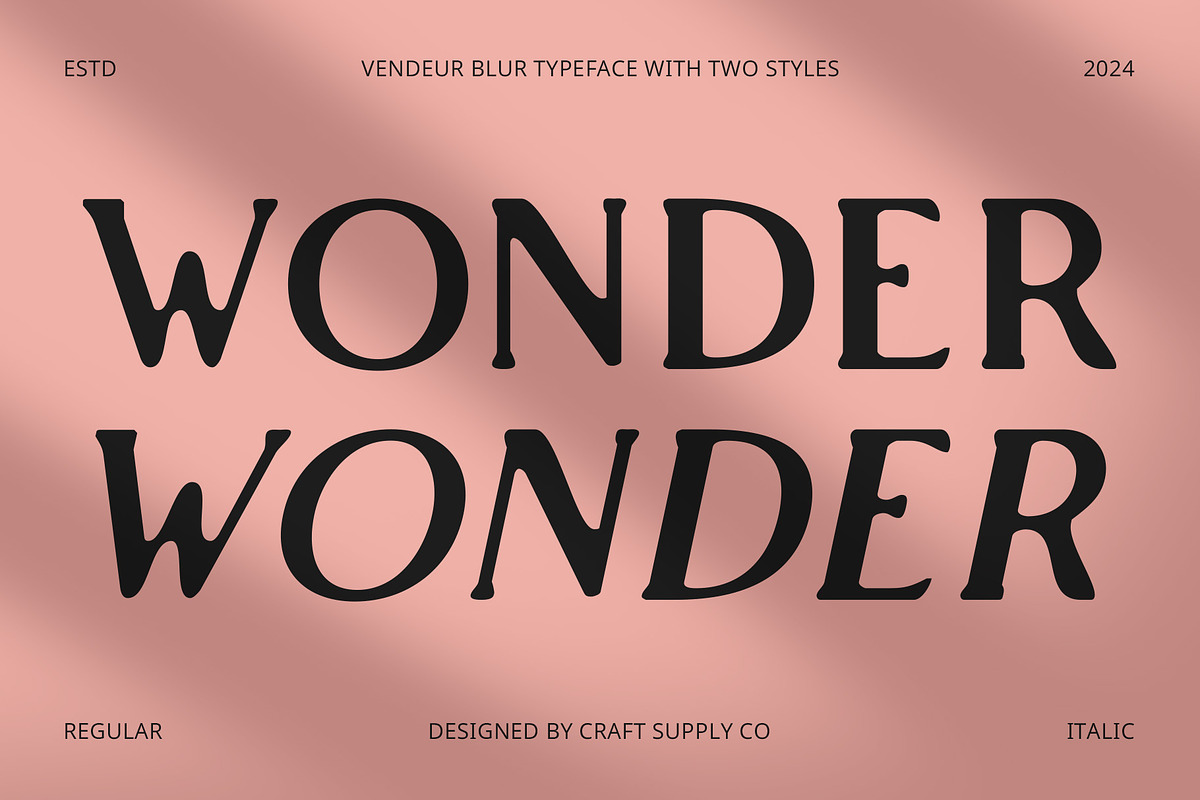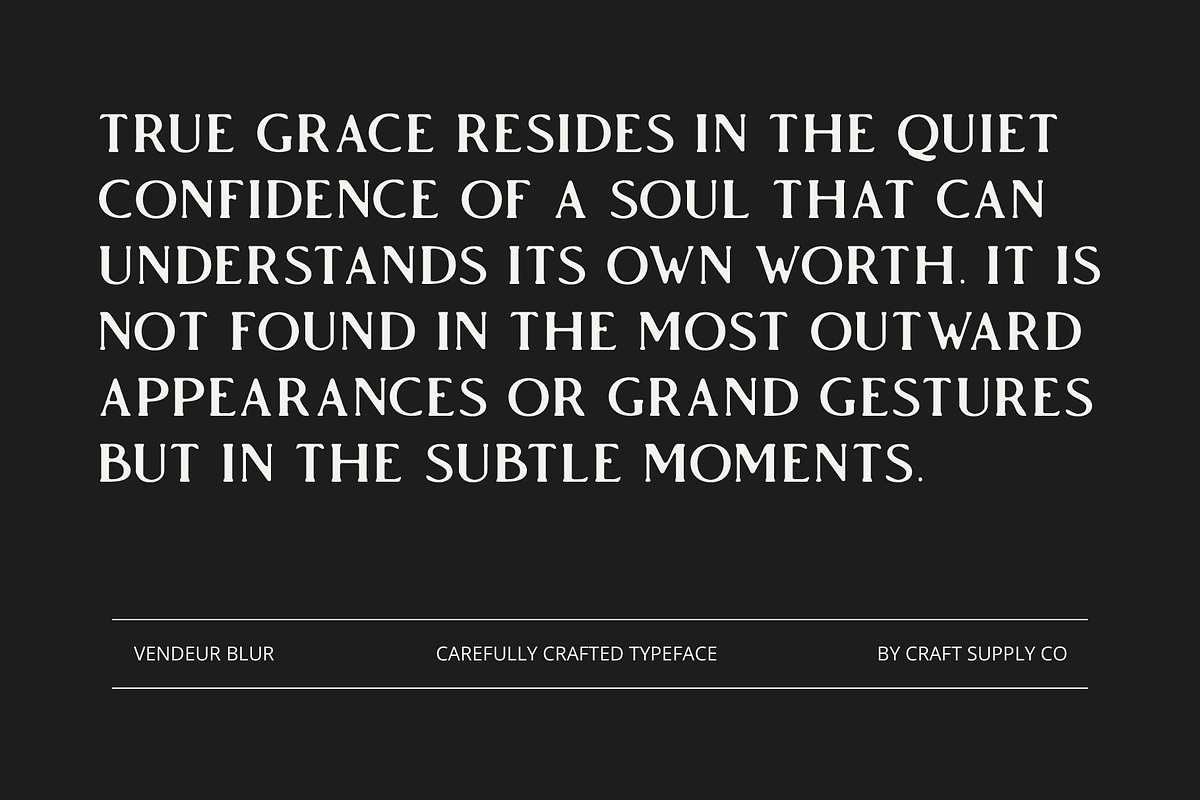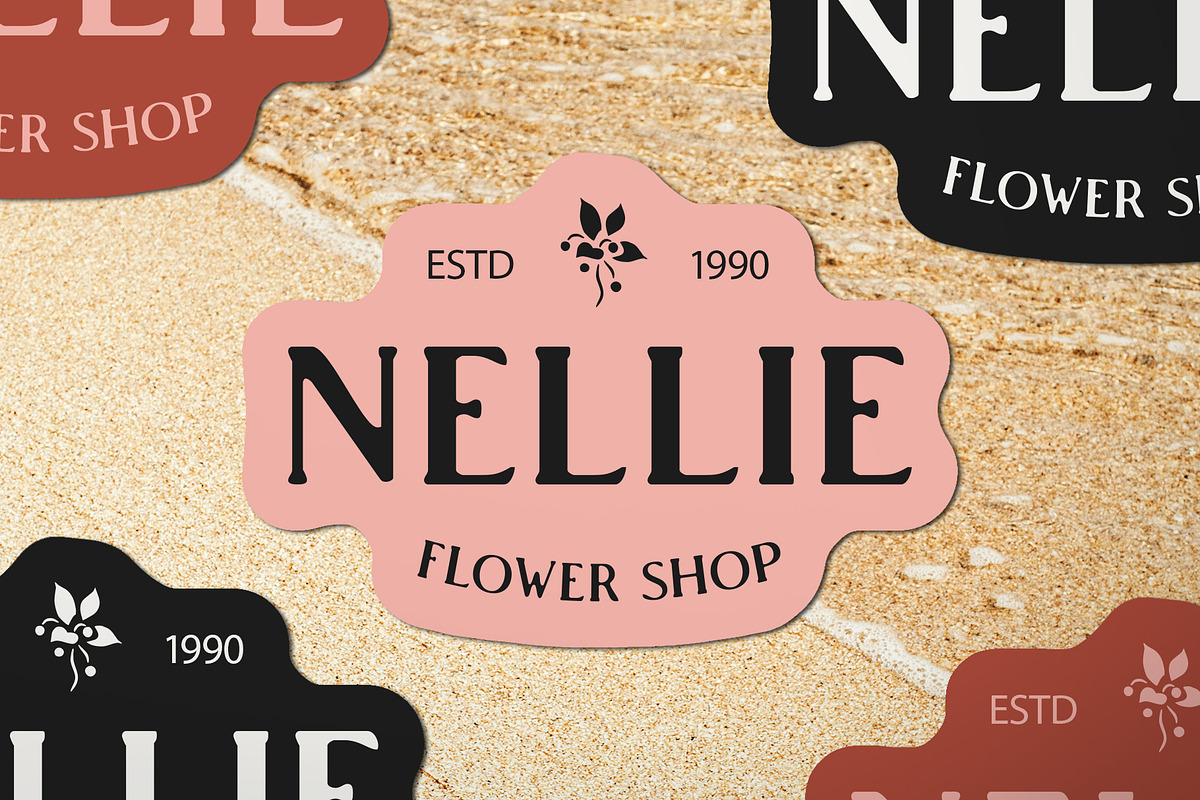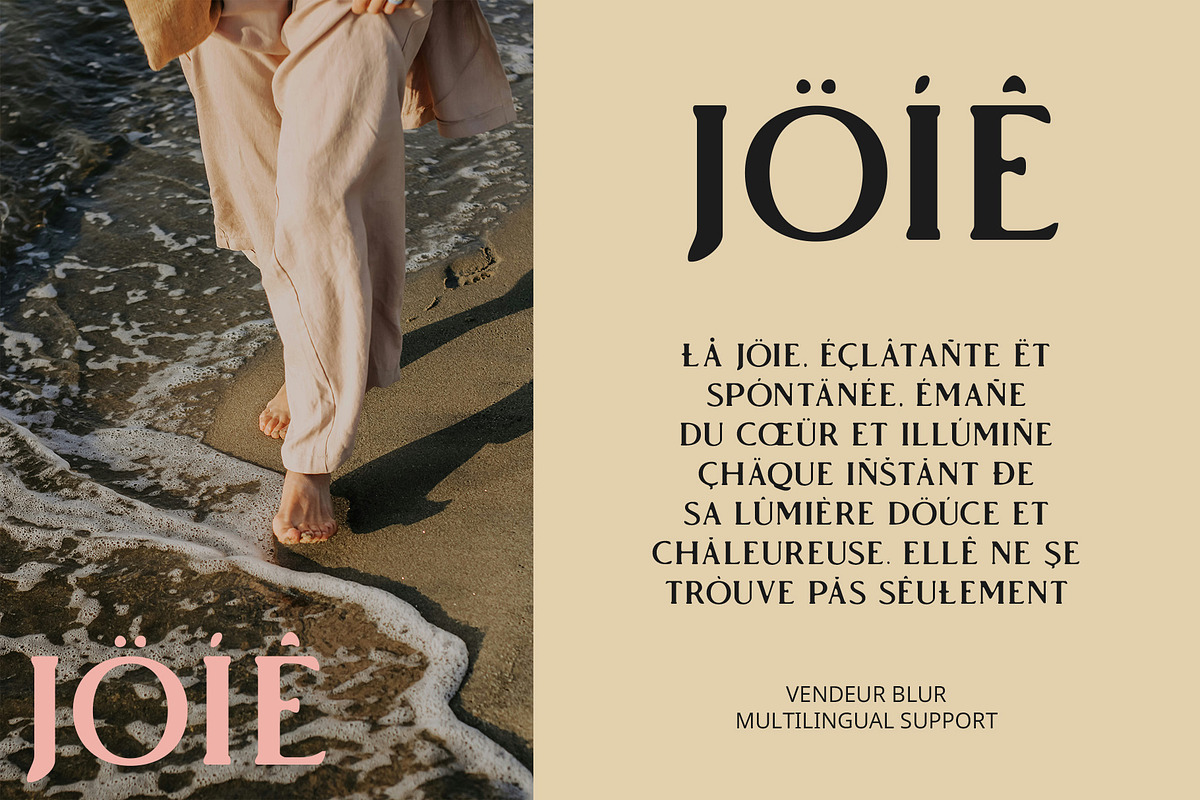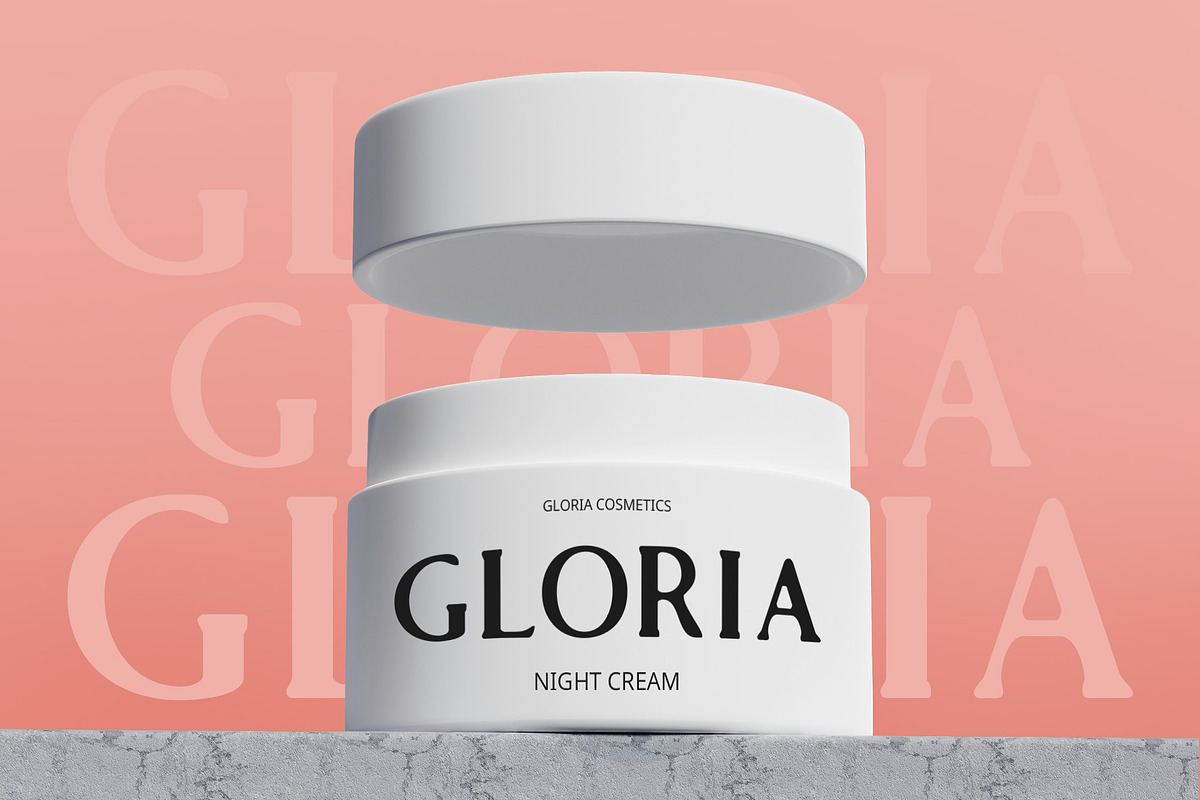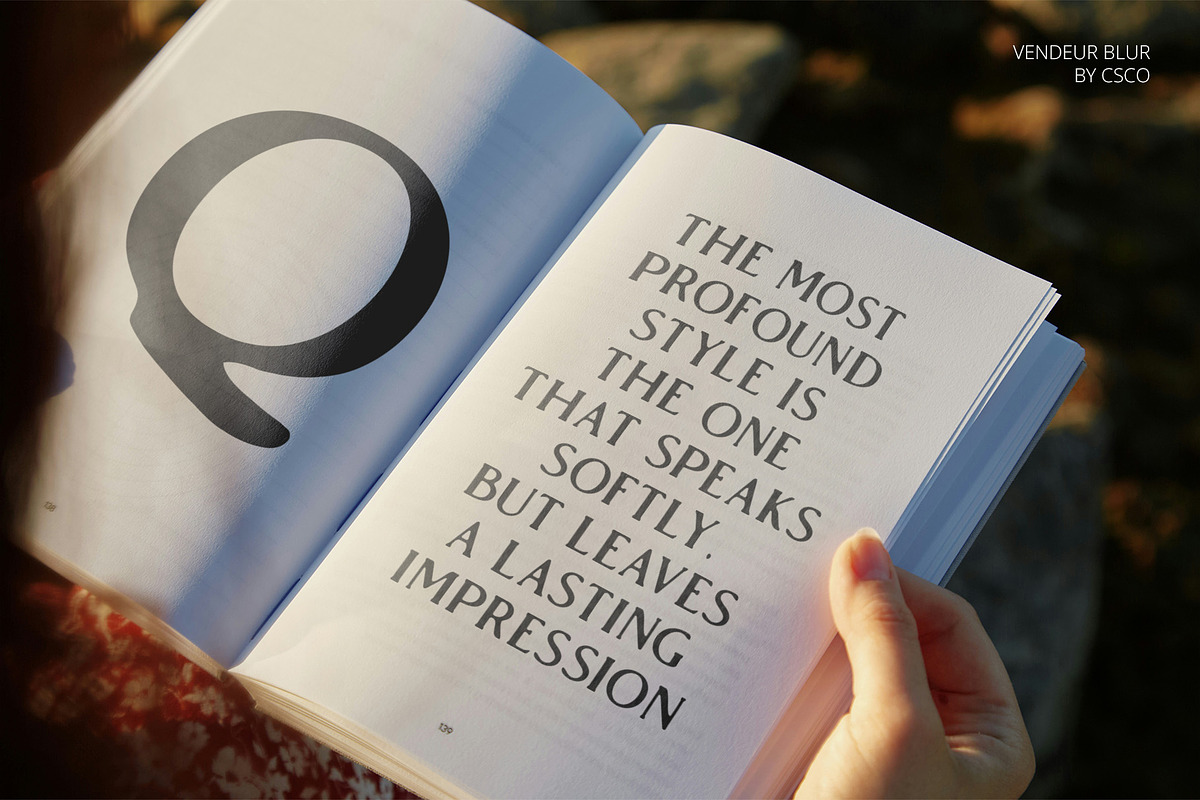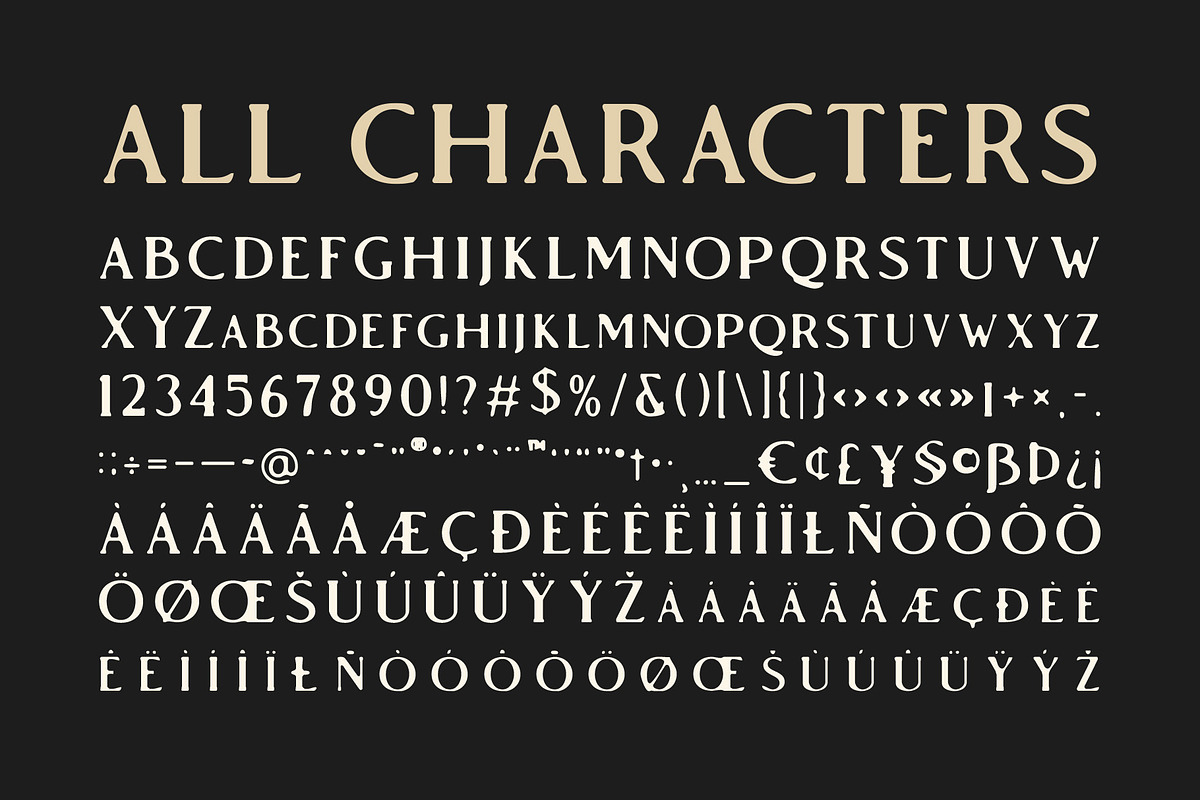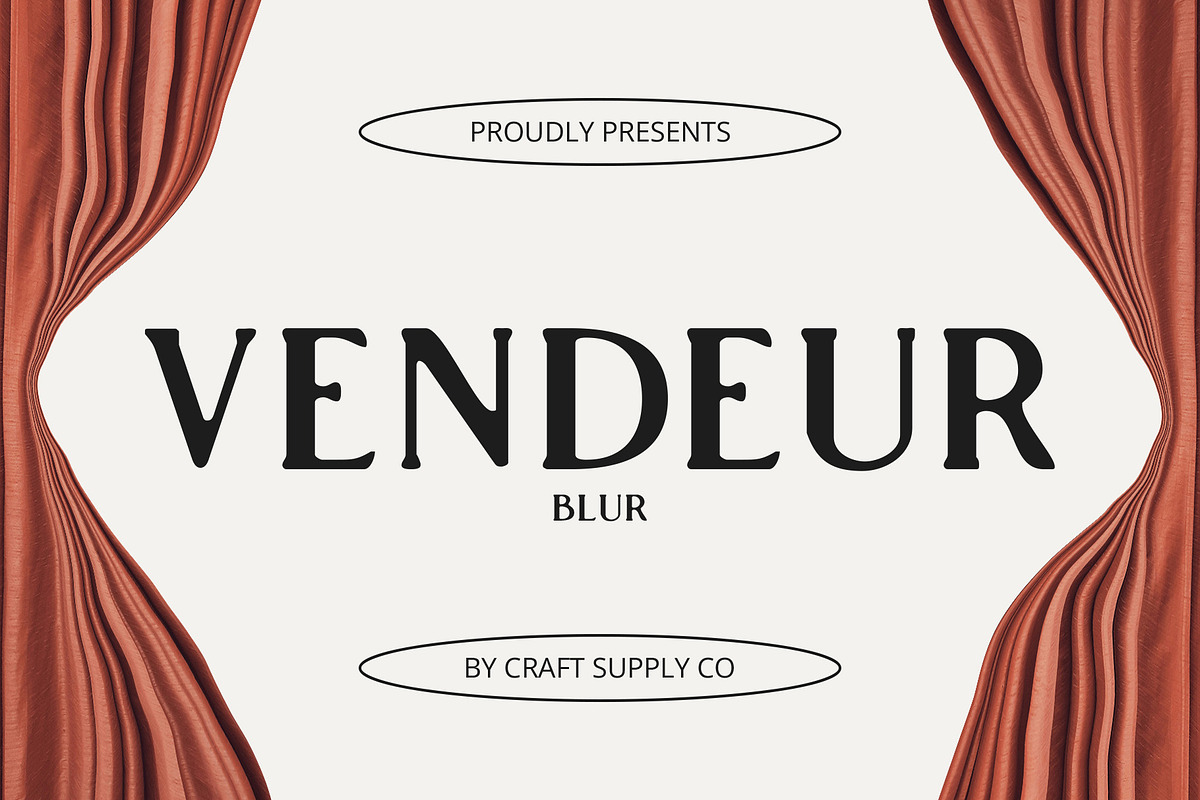
Vendeur Blur
Vendeur Blur – Elegant Modern Serif Font with a Dynamic Blur Effect
Classic Sophistication Meets Modern Mystery Vendeur Blur is a modern serif font that elegantly balances timeless sophistication with a contemporary twist. The carefully designed serif details maintain a classic, refined look, while the subtle blur effect adds a unique soft-focus quality, introducing a sense of fluidity and dynamic elegance. This blend of traditional and modern elements makes Vendeur Blur ideal for projects that aim to evoke both luxury and mystery.
Dynamic Soft-Focus Aesthetic The blur effect in Vendeur Blur creates a soft yet striking impression, allowing it to stand out in luxury branding and high-end editorial designs. This dynamic feature introduces a layer of intrigue, offering a refined, almost ethereal quality that elevates any design. Whether used in invitations, magazine layouts, or premium packaging, the blur effect enhances the font’s elegance and adds a sense of movement and depth.
Timeless Elegance with a Contemporary Twist Despite the modern twist of the blur effect, the serif details of Vendeur Blur retain their timeless elegance, creating a versatile design element that suits a wide range of luxury-oriented projects. Its ability to combine both classic and modern characteristics makes it perfect for high-end brands, elegant editorial pieces, and contemporary invitations that seek to convey sophistication with a touch of mystery.
- Vendeur Blur Regular
- Vendeur Blur Italic